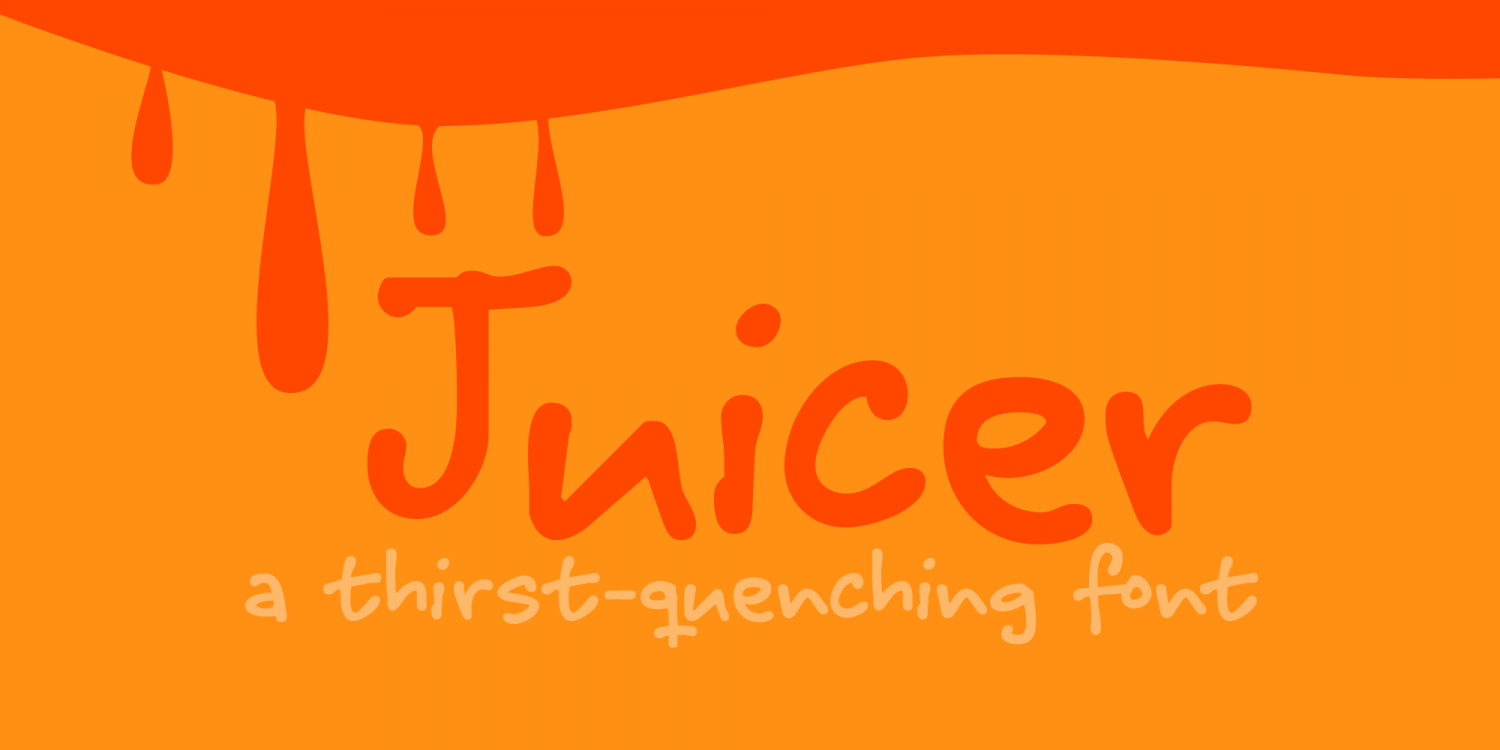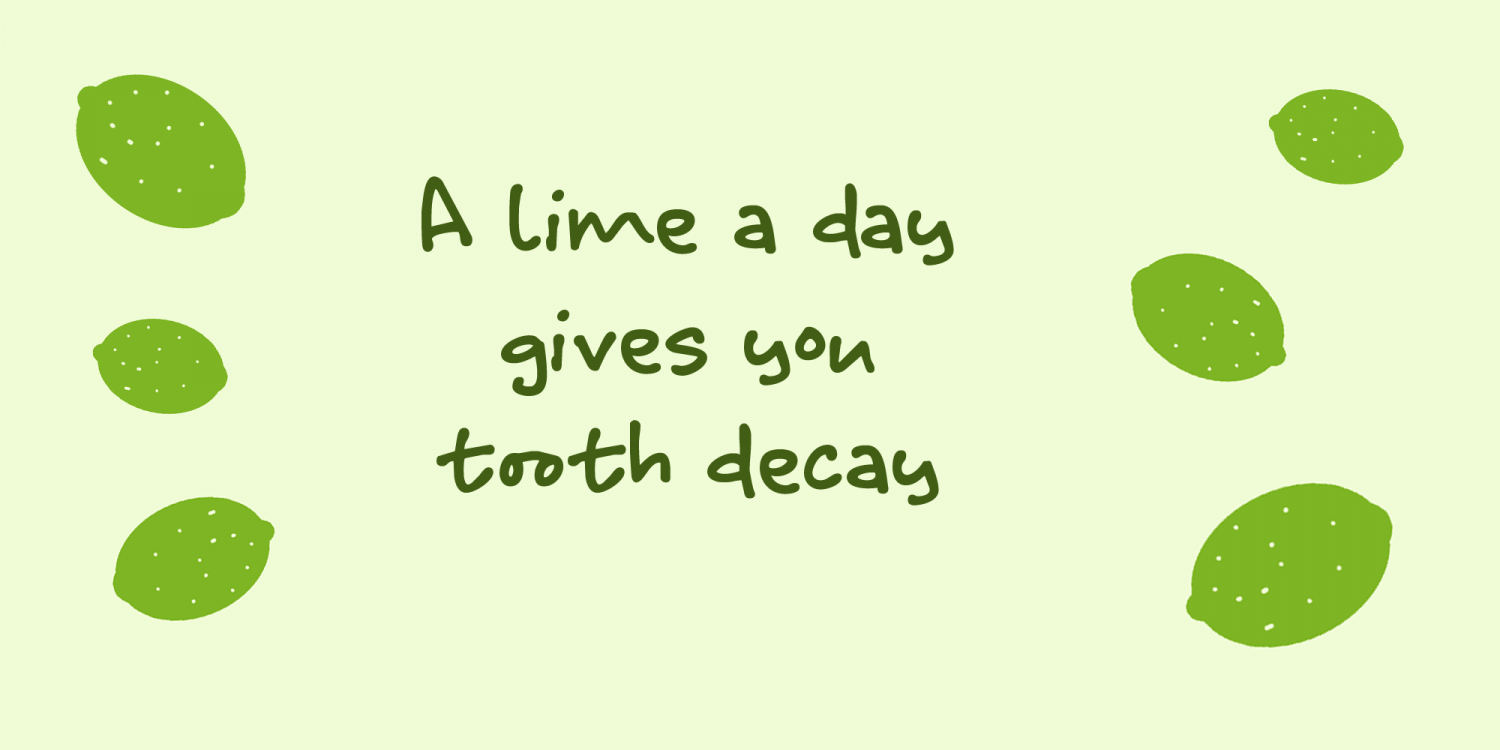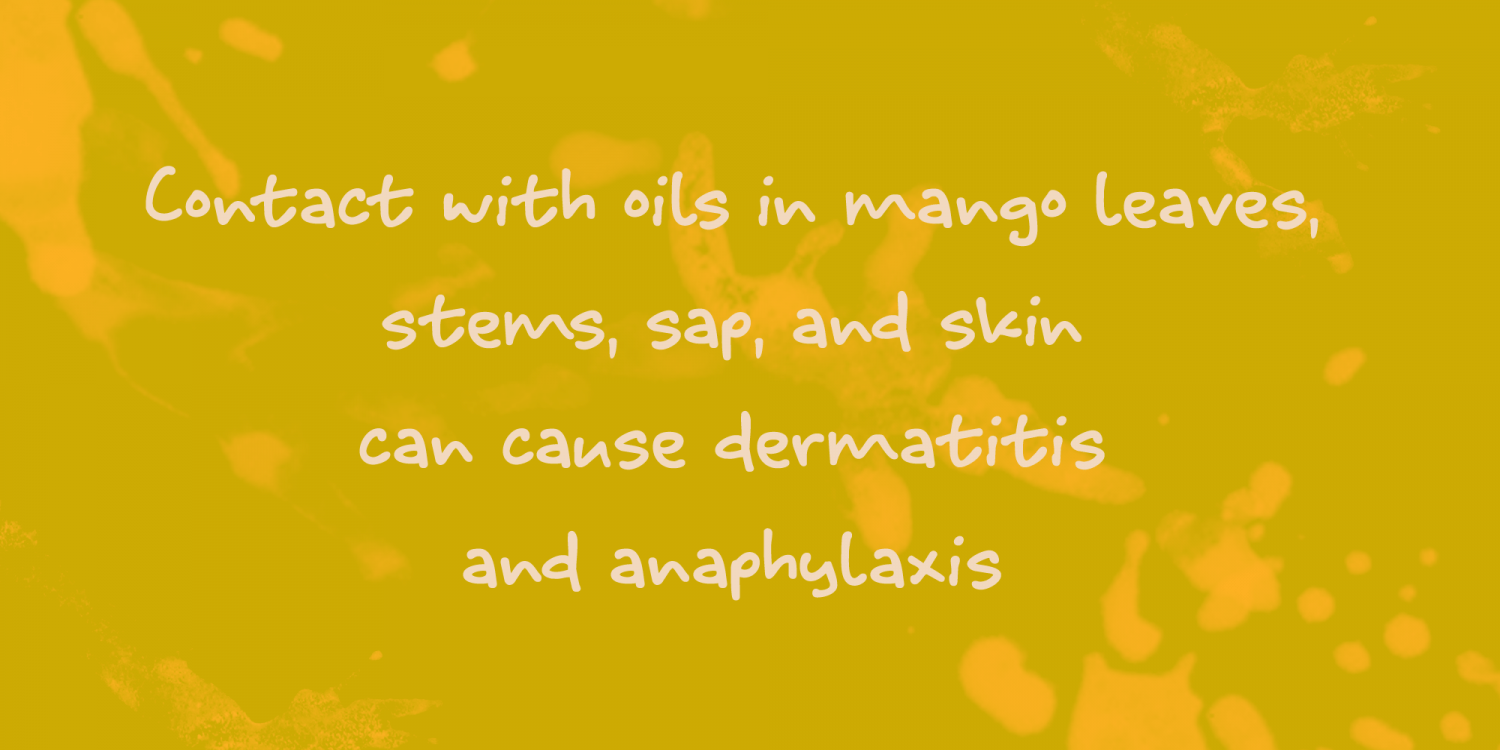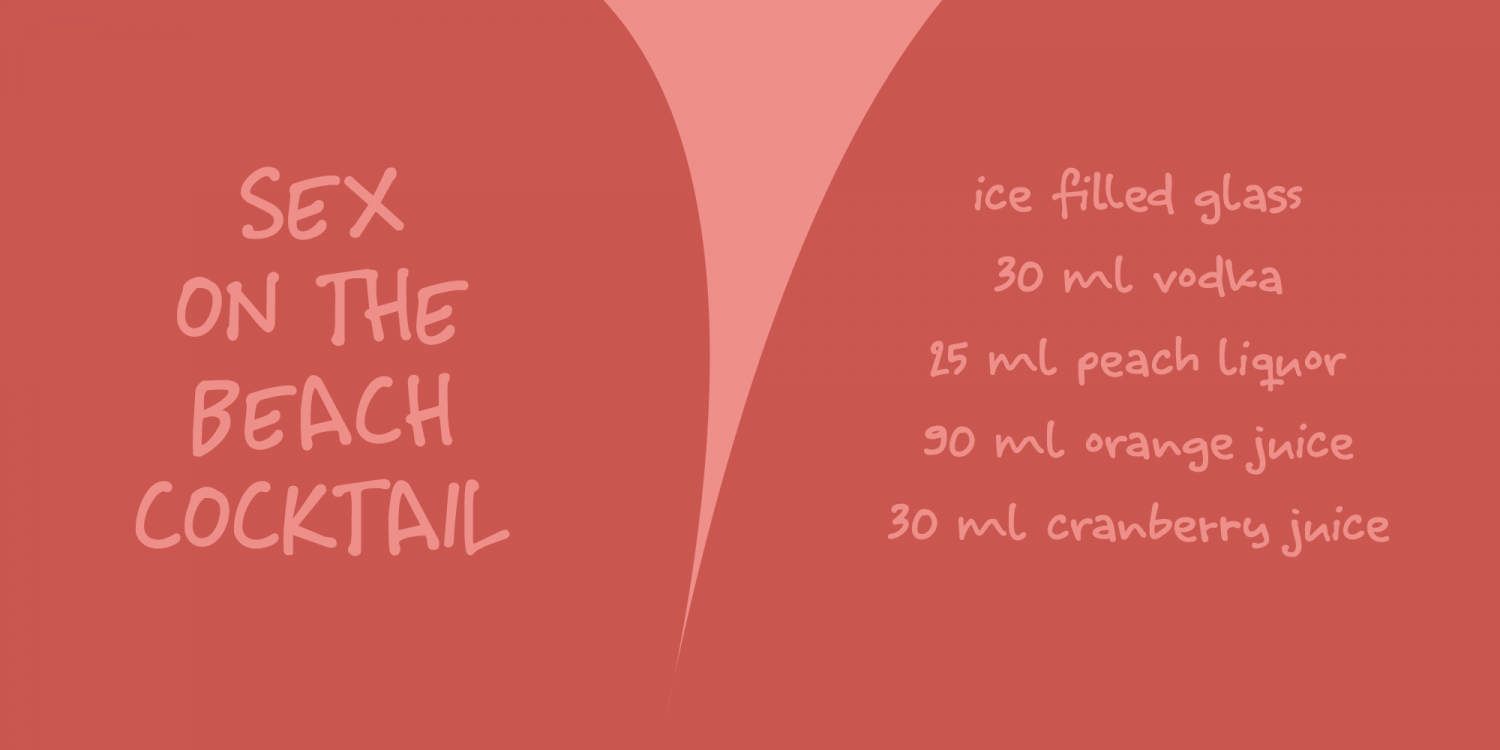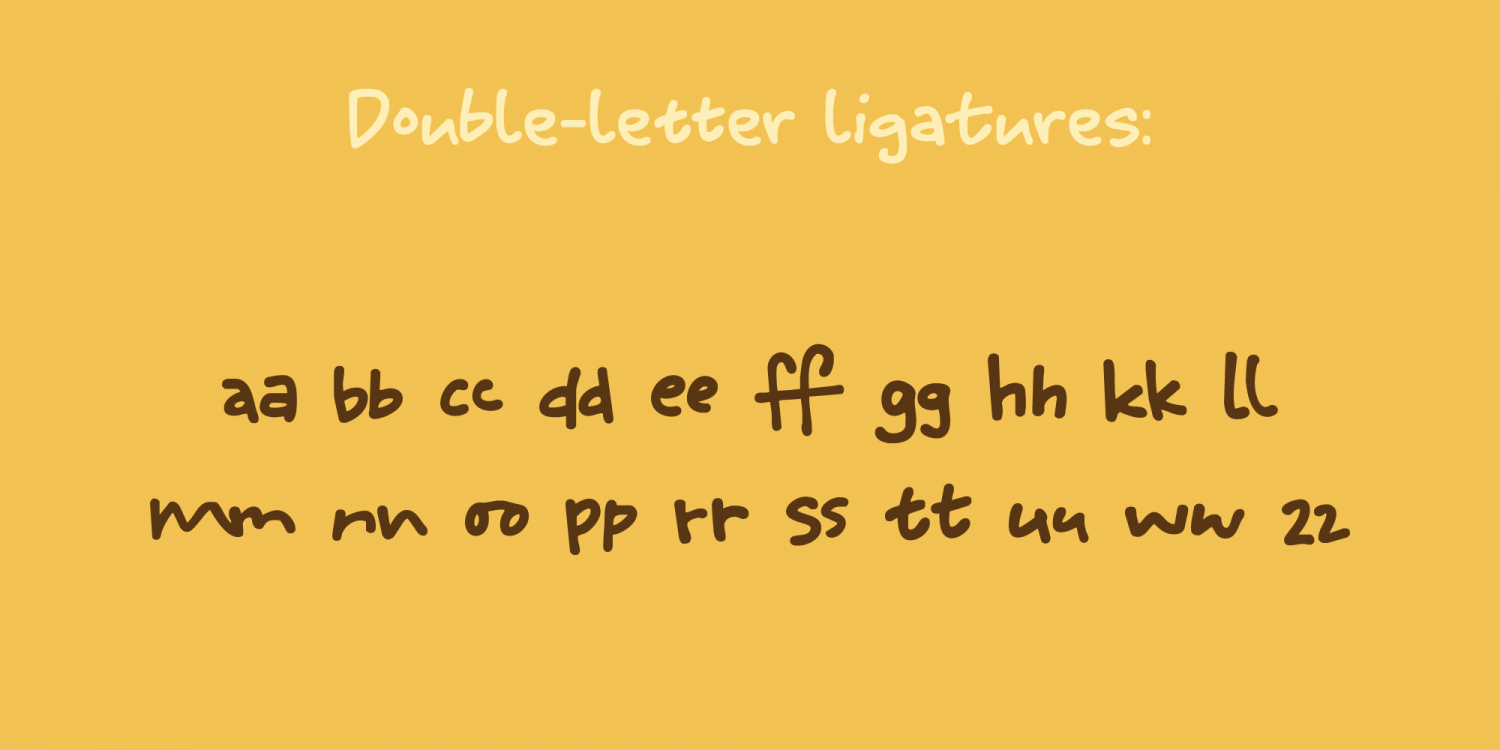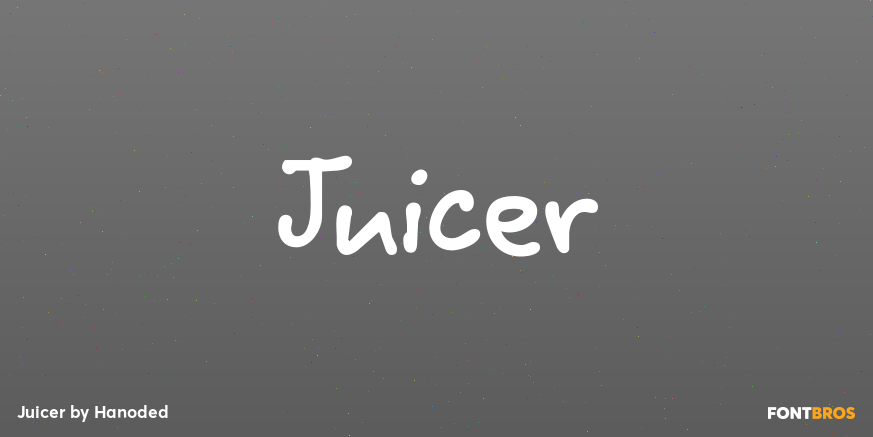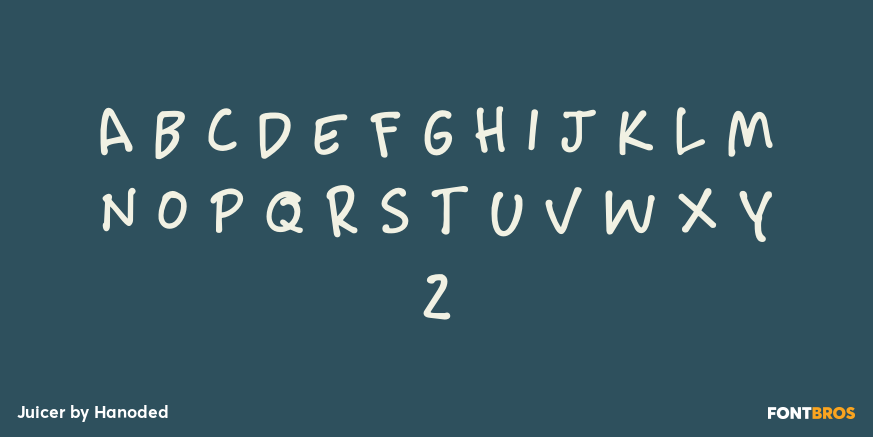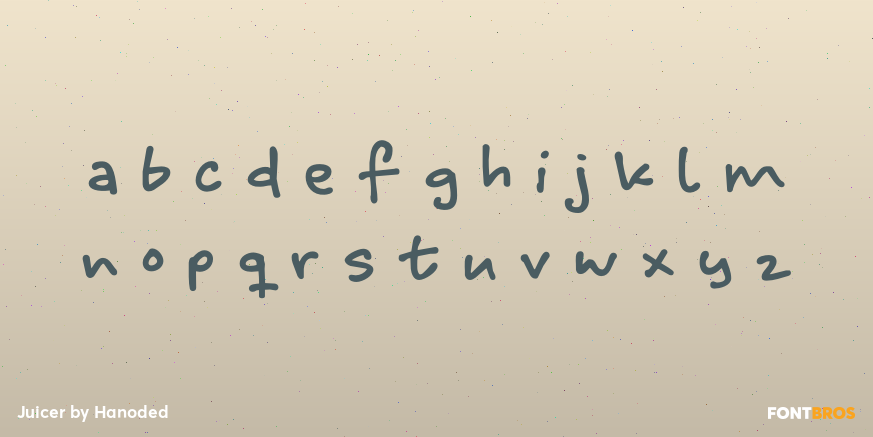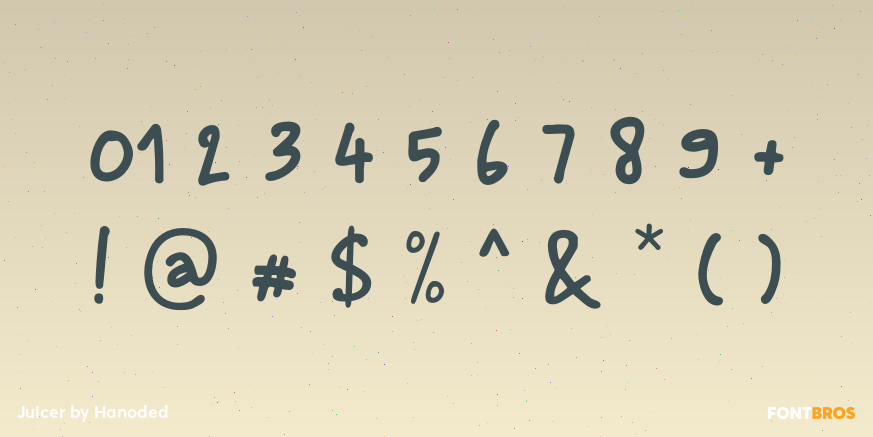
Juicer
We use an old hand juicer at home: a cheap plastic one that we bought a long time ago at a Swedish home appliances and furniture giant. We haven never considered upgrading to an electronic one, as it still works, it doesn't use electricity and we don't really use it that often. This font is called Juicer. It was not named after our manual juicer, or any juicer in particular. It was just a word that seemed to fit the font nicely. Juicer font is a handwritten, script-ish kinda font that comes in two great styles and contains a set of double letter ligatures.